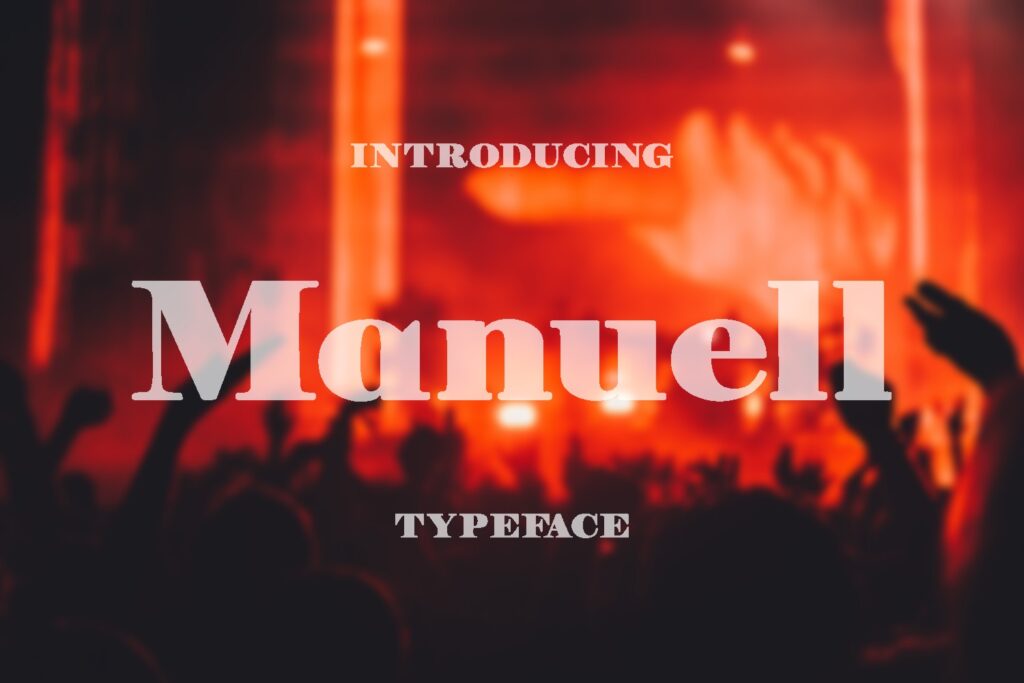
Manuell Font: A Handcrafted Serif Typeface for Unique Typography
The world of typography is vast and diverse, with numerous fonts and typefaces available for designers to choose from. However, when it comes to creating a unique and distinctive look, many designers turn to handcrafted serif typefaces. One such typeface is Manuell Font, a beautifully crafted serif font that offers a touch of elegance and sophistication to any design project.
What is Manuell Font?
Manuell Font is a handcrafted serif typeface designed to provide a unique and distinctive look to various design projects. The font features a classic serif design with a modern twist, making it suitable for a wide range of applications, from branding and advertising to publishing and digital media.
Characteristics of Manuell Font
Manuell Font boasts several characteristics that make it an excellent choice for designers. Some of its key features include:
- Handcrafted design: Manuell Font is carefully crafted to provide a unique and distinctive look, with each letterform meticulously designed to ensure a high level of legibility and readability.
- Serif design: The font features a classic serif design, which adds a touch of elegance and sophistication to any design project.
- Modern twist: Despite its classic design, Manuell Font has a modern twist that makes it suitable for contemporary design projects.
- Legibility: The font is designed to be highly legible, making it suitable for use in a variety of applications, from body text to headings.
What is a Handcrafted Serif Typeface?
A handcrafted serif typeface is a font that is carefully designed and crafted by hand to provide a unique and distinctive look. Unlike machine-generated fonts, handcrafted serif typefaces are created using traditional techniques, such as lettering and calligraphy.
Handcrafted serif typefaces, like Manuell Font, offer several benefits, including:
- Unique design: Each handcrafted serif typeface is unique, offering a distinctive look that sets it apart from other fonts.
- Elegance and sophistication: Handcrafted serif typefaces often feature a level of elegance and sophistication that is hard to achieve with machine-generated fonts.
- High legibility: Handcrafted serif typefaces are often designed with legibility in mind, making them suitable for use in a variety of applications.
Benefits of Using Manuell Font
Manuell Font offers several benefits to designers, including:
- Unique typography: Manuell Font provides a unique and distinctive look that sets it apart from other fonts.
- Elegance and sophistication: The font features a level of elegance and sophistication that is perfect for high-end design projects.
- High legibility: Manuell Font is designed to be highly legible, making it suitable for use in a variety of applications.
- Flexibility: The font is suitable for use in a wide range of applications, from branding and advertising to publishing and digital media.
- Use it for headings: Manuell Font is perfect for use in headings and titles, where its elegant and sophisticated design can be showcased.
Manuell Font is a beautifully crafted handcrafted serif typeface that offers a unique and distinctive look to various design projects. Its elegant and sophisticated design, combined with its high legibility, make it an excellent choice for designers looking to create a unique typography. Whether you’re working on a branding project, creating a website, or designing a print publication, Manuell Font is a great choice.
- What is Manuell Font? Manuell Font is a handcrafted serif typeface designed to provide a unique and distinctive look to various design projects.
- What are the benefits of using Manuell Font? Manuell Font offers several benefits, including unique typography, elegance and sophistication, high legibility, and flexibility.